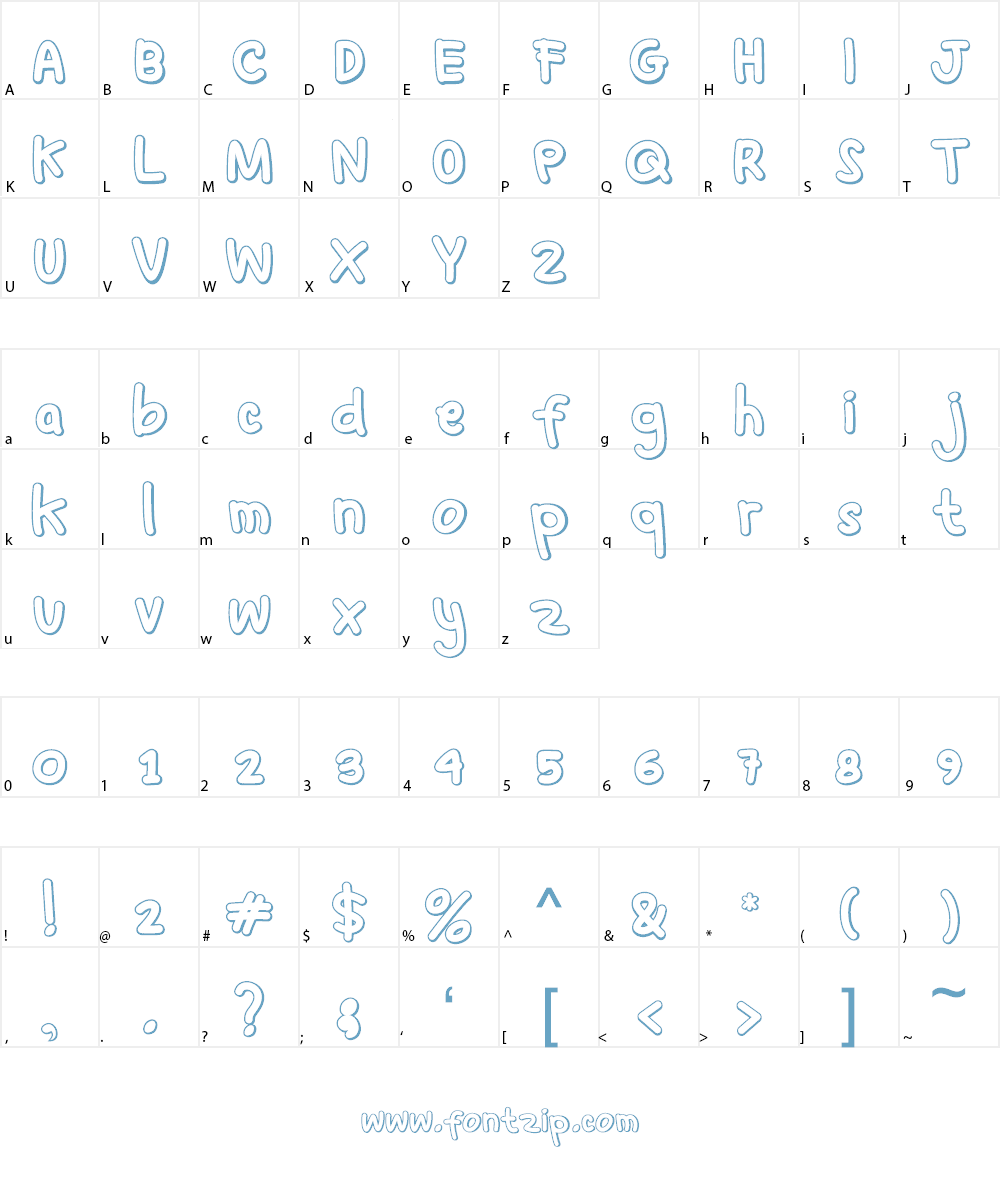
Friendly Hand-drawn cute font. Fonts that you can use anywhere, simple, cute and very easy to read.
Especially for something not formal, food, entertainment, birthday events, parties etc.